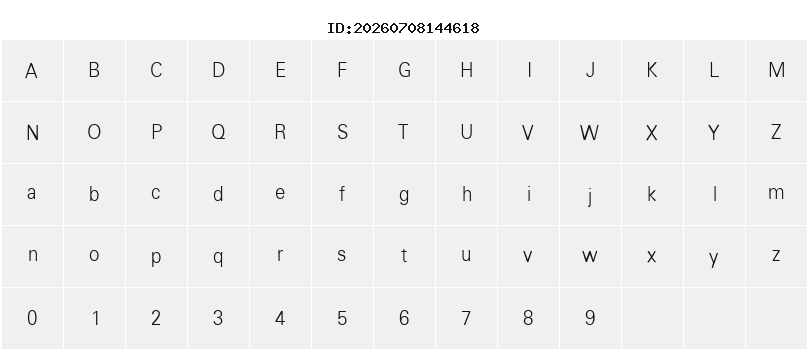
About DSU_AnuRug.ttf
DSU_AnuRug.ttf is a modern, elegant sans-serif font designed for ultimate readability and visual harmony. Perfect for branding, headlines, web design, and print materials.